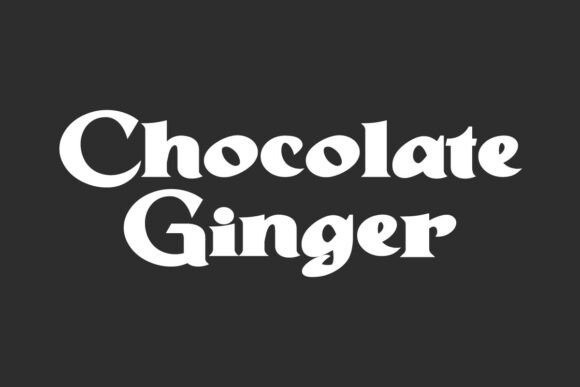
Chocolate Ginger Font
Chocolate Ginger Font is a delicious and memorable display typeface, drawing inspiration from the groovy, chunky forms of 1970s typography. Its heavy, voluptuous curves and soft serifs give it an undeniable retro warmth and a bold, friendly personality.
This font is perfect for food and beverage branding, packaging design, throwback merchandise, impactful headlines, and any project that needs a strong dose of nostalgic charm with a sweet, comforting aesthetic.